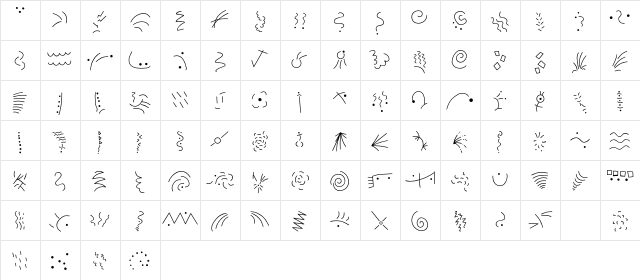
Complete MiniPics ConfettiLight glyph index. Displaying only characters natively supported by MiniPics ConfettiLight font.
MiniPics is a composed and adaptable typeface that performs quietly and consistently across a wide range of design contexts. Its slender proportions lend an understated elegance to any composition.